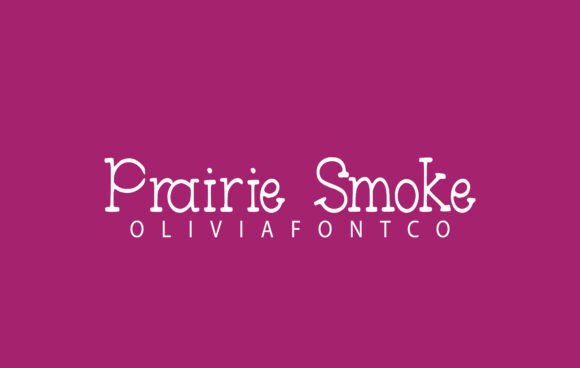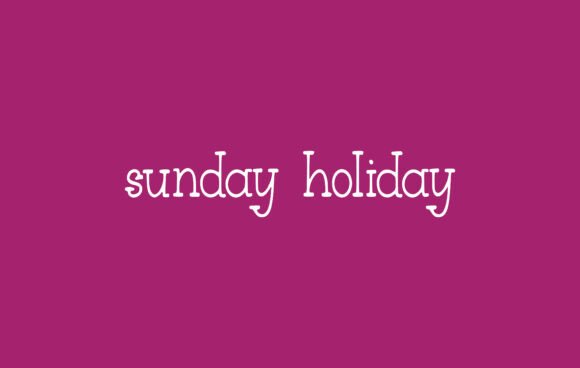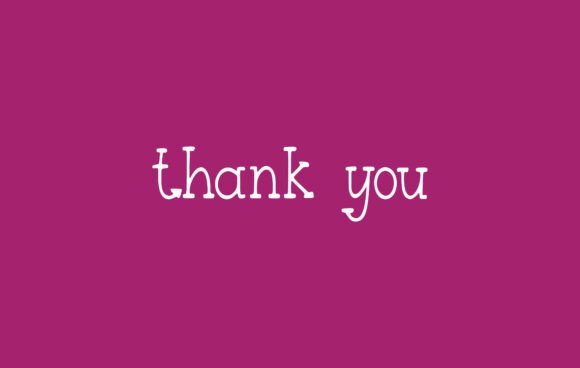
Prairie Smoke Font: A Romantic Handwritten Font for Wedding Designs
About the Prairie Smoke Font
The Prairie Smoke Font offers a perfect balance of form and function for your design needs. Prairie Smoke font is an authentic handwritten font with a romantic touch. Expertly designed to be a true favorite, this font has the potential to take your creative ideas to the highest level
Prairie Smoke’s romantic, handwritten style excels in headlines, short text blocks on invitations or packaging, and social media graphics where its expressive quality shines. However, its less-than-optimal x-height and varied stroke weights make it unsuitable for body text or extended reading. Avoid using it in UI or situations requiring high legibility at small sizes.
Its inherent warmth pairs beautifully with clean sans-serif fonts like Montserrat or Open Sans for a balanced contrast. For a more elegant feel, consider pairing it with a classic serif such as Garamond or Didot. These pairings ground the handwritten informality, offering a sophisticated visual harmony.
Prairie Smoke projects a friendly, slightly whimsical personality, making it ideal for brands focused on handcrafted goods, weddings, or projects needing a touch of vintage charm. Its romantic character should be considered when selecting a brand or project.
Prairie Smoke Font Usage Examples
Prairie Smoke Font Example